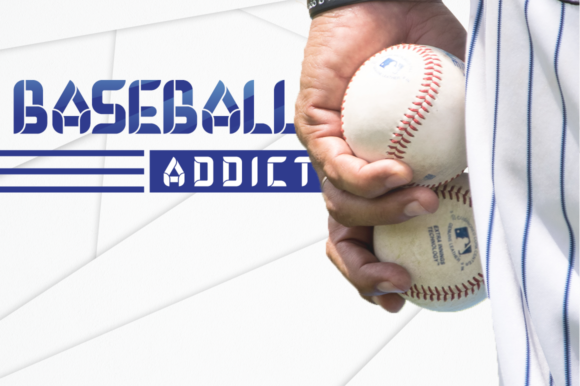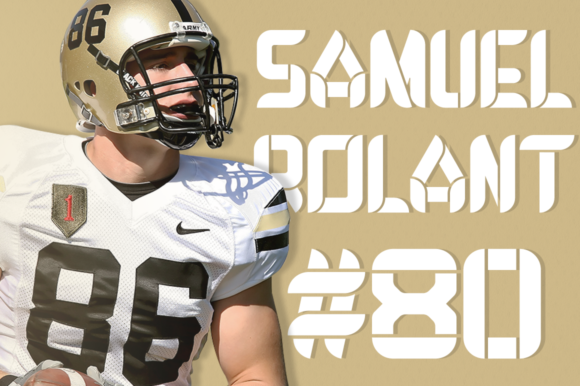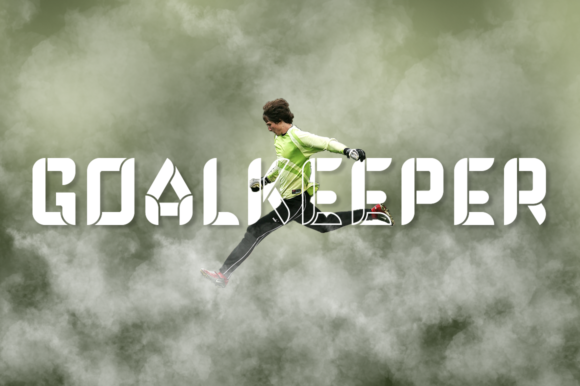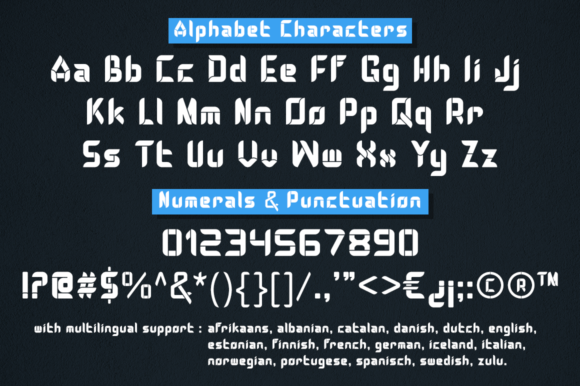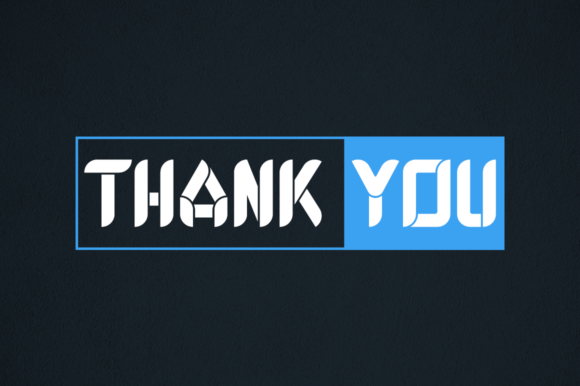
Introducing DEBROSEE Font: Elevate Your Designs with Modern Luxury
In the world of typography, fonts play a crucial role in conveying the essence of a brand or design. For designers and crafters seeking a modern, luxurious, and classy style that stands out from the rest, DEBROSEE Font is an exceptional choice. This versatile font is perfect for creating stunning logos, sporty and adventurous themes, fitness branding, and more, catering to masculine styles with ease.
What Makes DEBROSEE Font Stand Out?
DEBROSEE Font boasts a unique and contemporary design that effortlessly blends modernity with luxury. Its distinct style ensures that your designs exude a sense of sophistication and elegance, making it ideal for projects that demand a high-end feel. Whether you’re working on a logo, a sports brand, an adventure-themed project, or a fitness-related design, DEBROSEE Font provides the perfect typographic solution.
Key Features of DEBROSEE Font
- Modern and Luxurious Style: DEBROSEE Font features a sleek and contemporary design, perfect for modern designs that require a touch of luxury.
- Classy and Unique: Its distinctive style sets it apart from other fonts, ensuring your designs stand out.
- Multilingual Support: DEBROSEE Font supports 17 languages, offering versatility for global projects. You can see the supported languages in the preview image.
- Versatile Applications: Ideal for logos, sports, adventure, fitness, and other masculine style projects.
Why Choose DEBROSEE Font for Your Projects?
Choosing the right font for your project can be a daunting task, given the numerous options available. However, DEBROSEE Font offers several compelling reasons to make it your go-to choice:
- Enhance Your Brand’s Image: With DEBROSEE Font, you can elevate your brand’s image by adding a modern and luxurious touch to your designs.
- Stand Out from the Crowd: Its unique style ensures that your designs are memorable and distinct.
- Easy to Use: DEBROSEE Font is easy to integrate into your projects, making it a convenient choice for designers.
- Supports Global Communication: With support for 17 languages, DEBROSEE Font is perfect for projects aimed at a global audience.
How to Use DEBROSEE Font in Your Designs
Incorporating DEBROSEE Font into your designs is straightforward. Here are some tips to make the most out of this versatile font:
- Logo Design: Use DEBROSEE Font to create stunning logos that reflect a modern and luxurious brand image.
- Sports and Fitness Branding: Its bold and classy style makes it perfect for sports and fitness-related projects.
- Adventure Themes: Add a touch of adventure and masculinity to your designs with DEBROSEE Font.
- Experiment with Styles: Don’t hesitate to experiment with different styles and sizes to find the perfect fit for your project.
DEBROSEE Font is a game-changer for designers and crafters looking for a modern, luxurious, and classy font that offers a unique style. Its versatility, multilingual support, and ease of use make it an excellent choice for a wide range of projects. Whether you’re aiming to create a memorable logo, a compelling sports brand, or an adventurous theme, DEBROSEE Font is your perfect companion. Elevate your designs with the sophistication and elegance that DEBROSEE Font brings to the table.